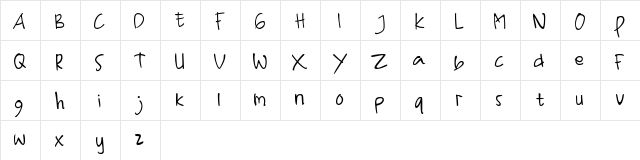
Aihana Regular
| Designer | Taznix. 2020 |
Design Context for Aihana Typeface
Aihana takes a measured approach to typography — its balanced proportions and neutral character make it a reliable workhorse for both digital and print work.